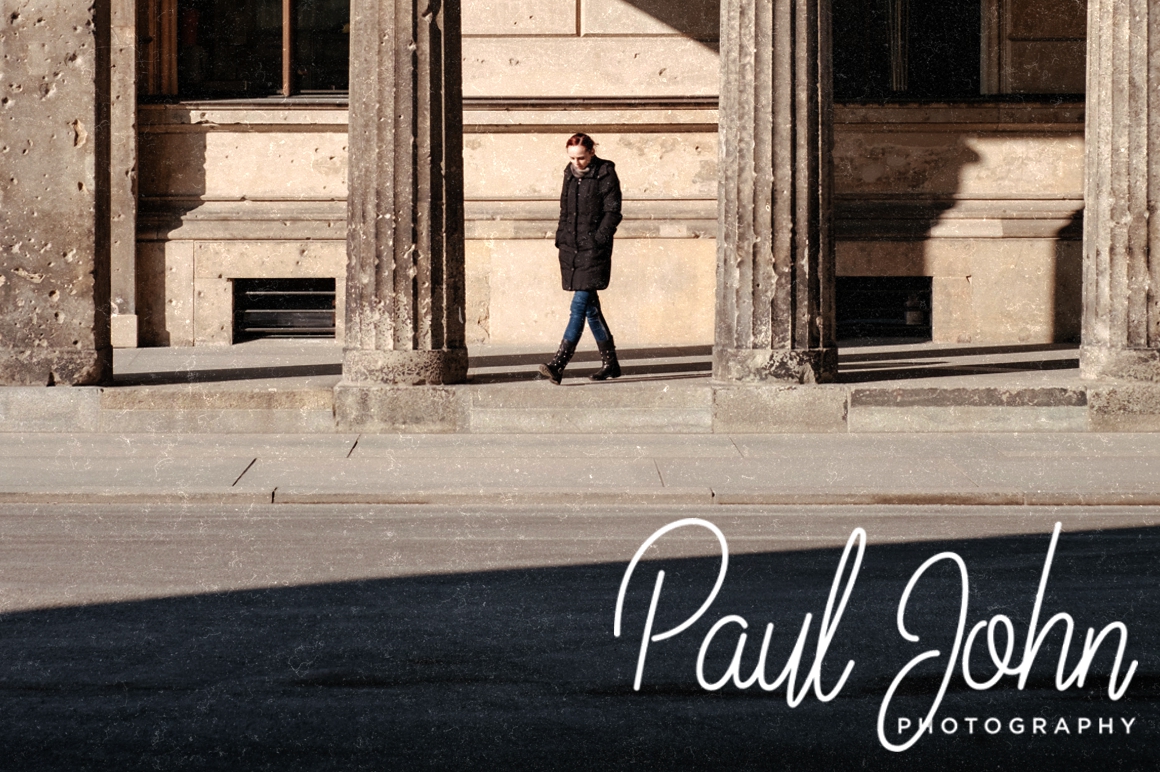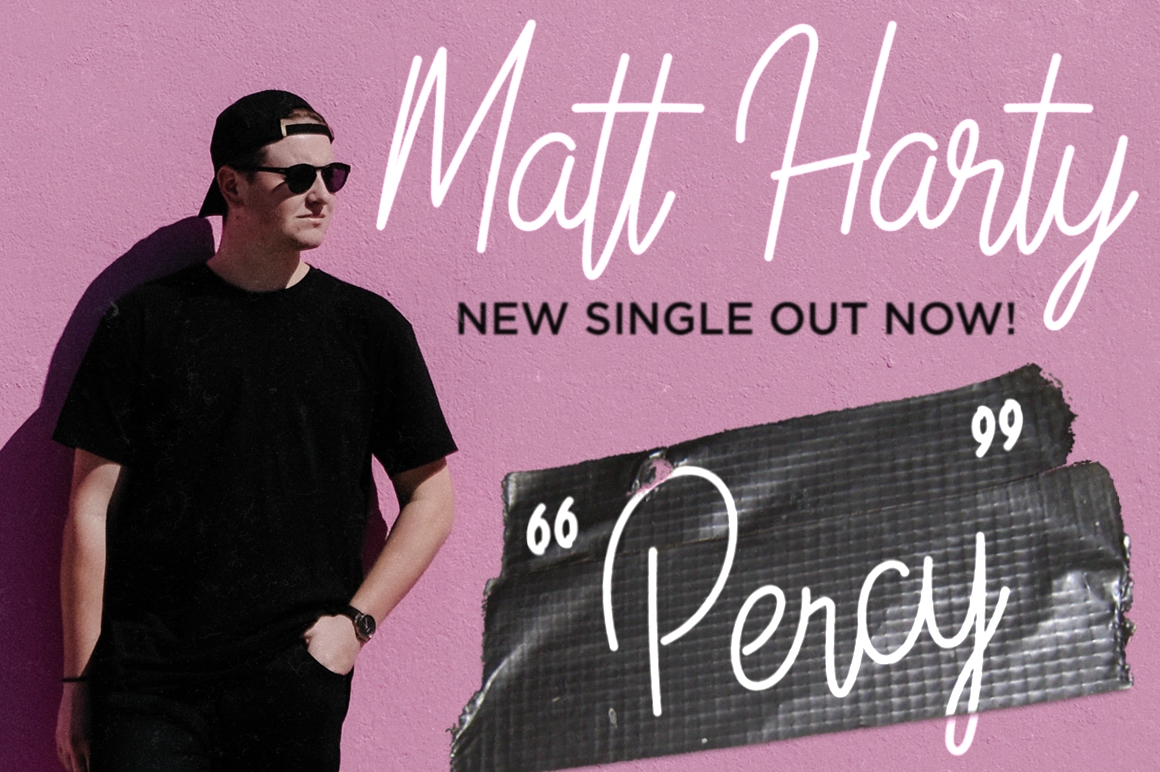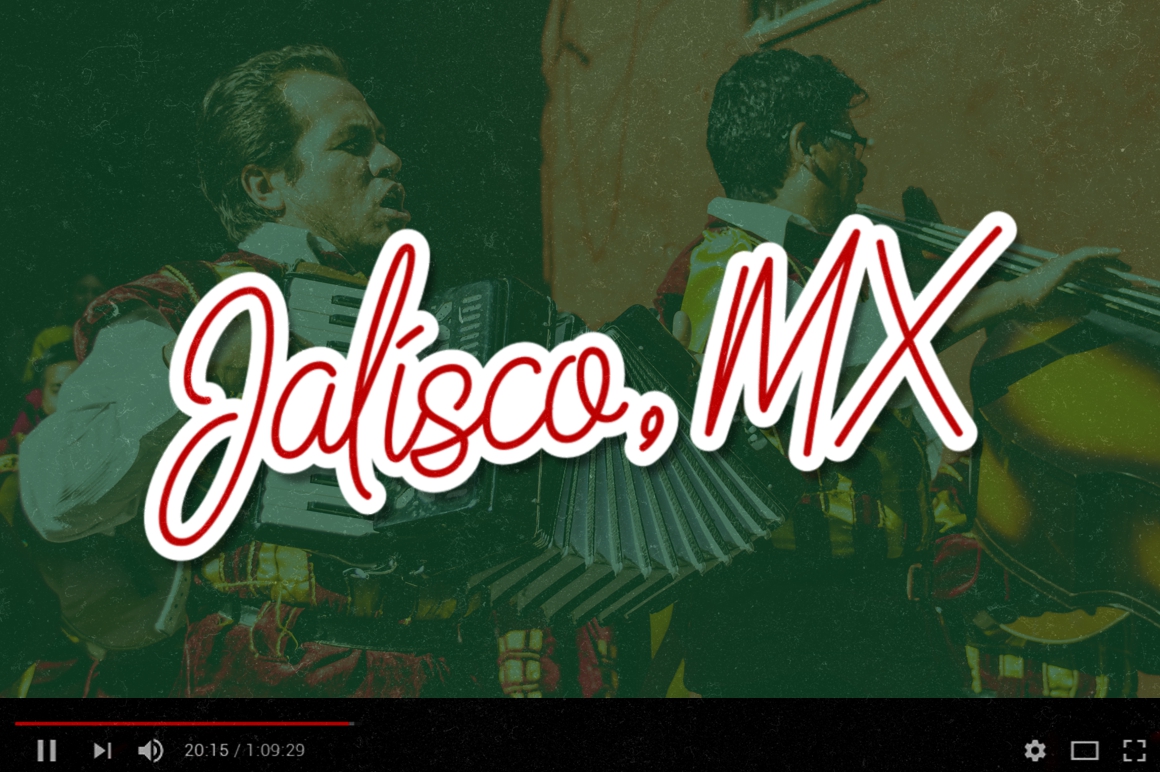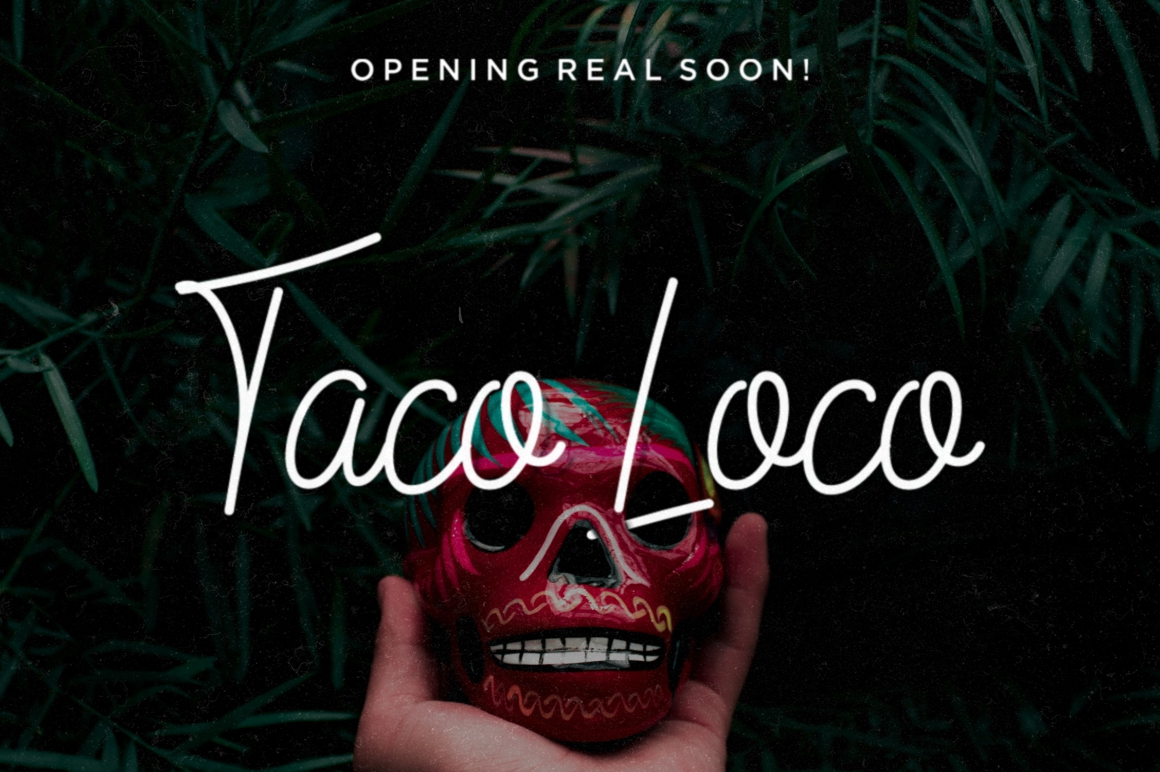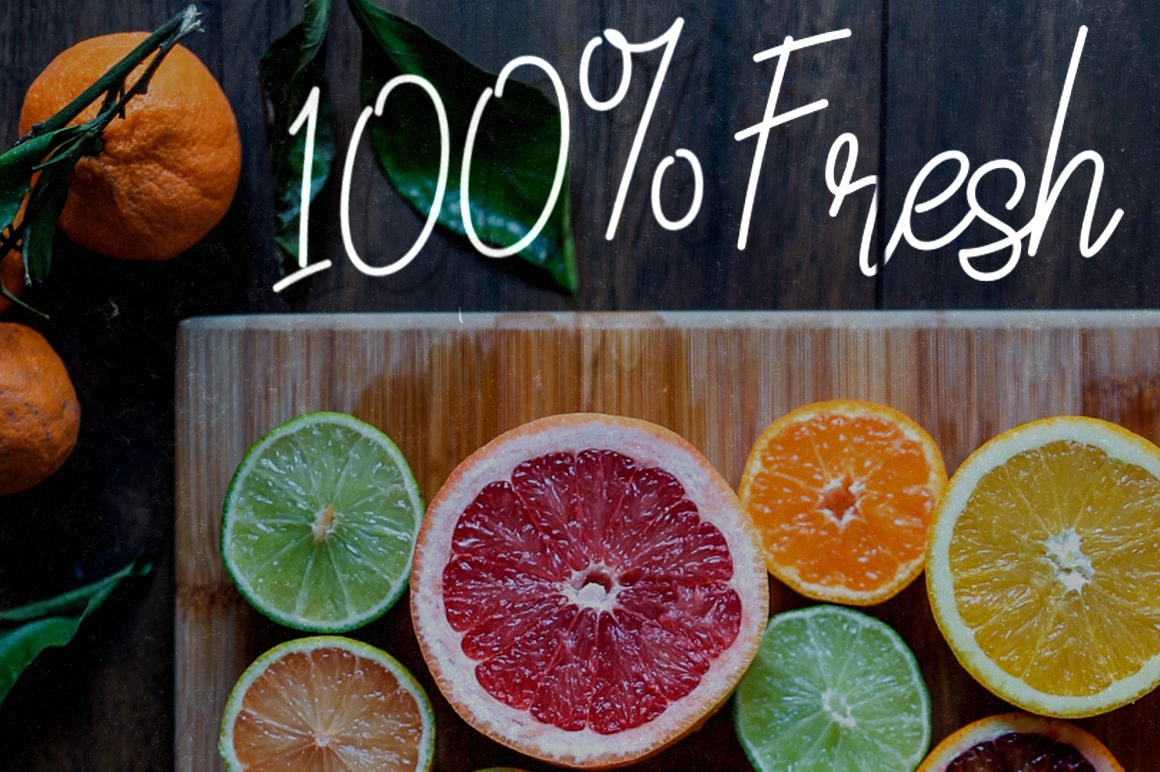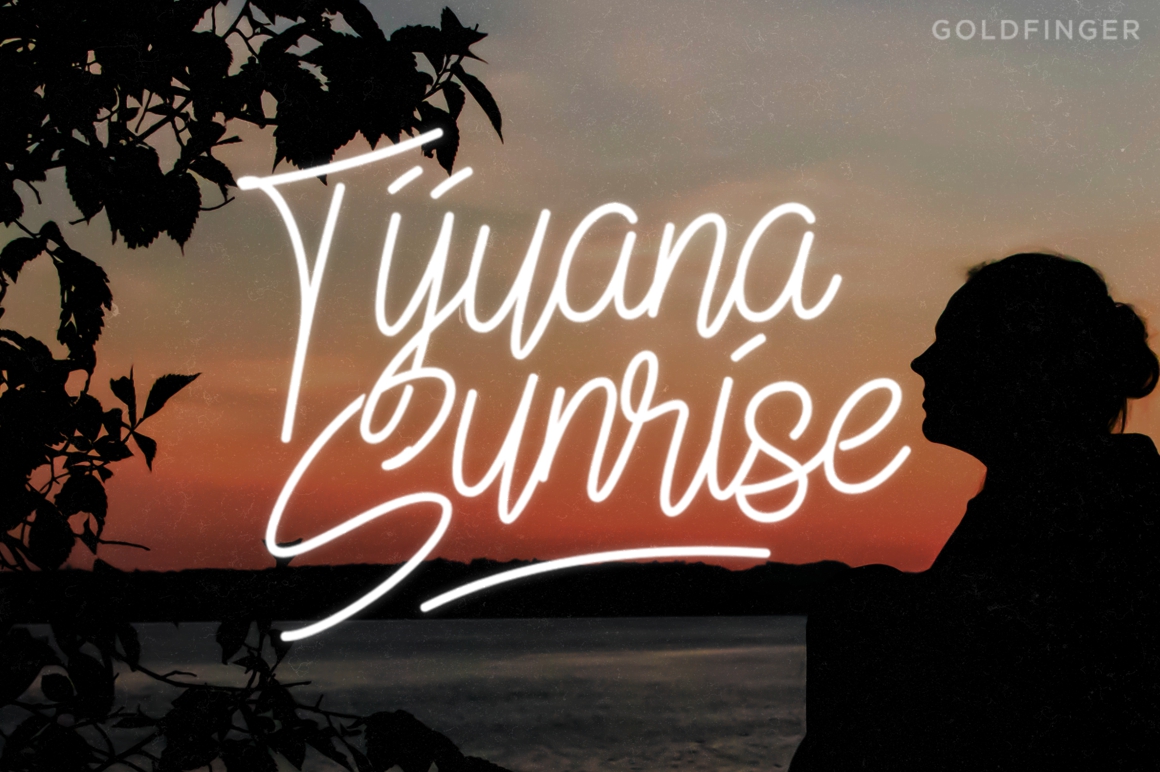
Introduction to Linoleo Script Font
Have you ever been in the midst of a creative project, staring at a blank page, trying to find the perfect font to bring your idea to life? The search can be overwhelming, but sometimes, all it takes is one unique discovery to set your project apart. For designers and artists, the right font can be the difference between a good design and a great one.
That’s where Linoleo Script Font comes in – a high-quality, handwritten monoline script font inspired by modern calligraphy. With its authentic and unique handwriting feel, Linoleo Script Font is the perfect design resource for any creative project that requires a touch of elegance and sophistication. Whether you’re working on a logo, a brochure, or a social media campaign, this versatile font is sure to add a personal touch.
Key Features of Linoleo Script Font
- High-quality, hand-drawn design ideal for creative projects, such as invitations, posters, and watercolor illustrations.
- Unique characteristics include swashes, flourishes, and subtle texture, adding an organic feel to your design.
- Perfect for designers seeking a elegant, handwritten font to elevate their creative projects.
Honest Review: Linoleo Script Font
I recently had the chance to work with the Linoleo Script Font, and I must say it’s a great addition to any designer’s toolkit. The font itself is a beautiful, high-quality script font perfect for creative projects that require a touch of elegance.
- ✨ Beautiful, high-quality design that’s perfect for creative projects
- ✨ Great for use as a title or heading font
- ⚠️ May not be suitable for body text due to its ornate design
- ⚠️ Limited character set, which may limit its use in certain projects
Overall, I’m really impressed with the Linoleo Script Font. It’s a great addition to any designer’s toolkit, and I would highly recommend it to anyone looking for a high-quality script font for their next creative project.
Linoleo Script Font Overview
The Linoleo Script Font is a high-quality, elegant design resource perfect for creative projects. Its beautiful, cursive script is ideal for adding a touch of sophistication to any design.
Tips for Getting the Most Out of Linoleo Script Font
To get the most out of the Linoleo Script Font, experiment with different font sizes, colors, and combinations. You can also use it to create custom watermarks, titles, and headings.
The Linoleo Script Font is perfect for use in wedding invitations, birthday cards, and other special occasions. It’s also great for creating beautiful quotes, poems, and inspirational messages.
Q: Can I use the Linoleo Script Font for a high-quality creative project?
The Linoleo Script Font is an excellent choice for high-quality creative projects, such as logo design, typography, and branding. Its elegant and sophisticated design makes it perfect for adding a touch of sophistication to your creative project. However, keep in mind that the font’s quality may vary depending on the design software and settings you’re using.